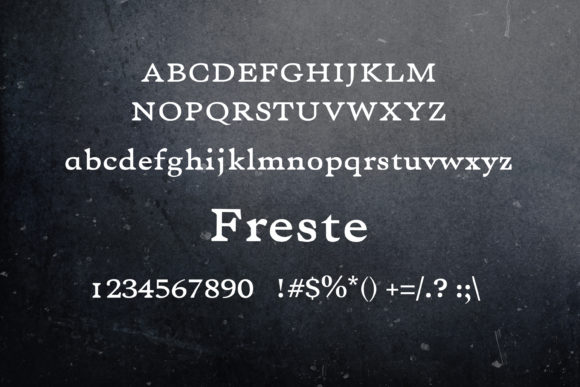
Introducing Freste Font: A Timeless Classic for Your Design Projects
Are you looking for a font that exudes elegance and sophistication? Look no further than Freste Font, a simple serif font with a unique look and feel that’s perfect for any design project that requires a classic appearance. In this article, we’ll dive into the world of Freste Font, exploring its features, benefits, and uses, as well as provide tips and inspiration for designers and crafters.
A Brief Overview of Freste Font
Freste Font is a serif font that’s characterized by its clean lines, simple shapes, and classic feel. It’s a versatile font that can be used for a wide range of design projects, from logos and branding to headings and body text. Whether you’re working on a website, brochure, or business card, Freste Font is a great choice for adding a touch of sophistication and elegance to your design.
Key Features of Freste Font
- Simple and Elegant Design: Freste Font features a simple and elegant design that’s perfect for creating a classic look.
- Serif Details: The font includes serif details that add a touch of sophistication and refinement to your design.
- Unique Look and Feel: Freste Font has a unique look and feel that’s sure to set your design apart from the rest.
- Highly Versatile: The font is highly versatile and can be used for a wide range of design projects.
Benefits of Using Freste Font
So why choose Freste Font for your design projects? Here are just a few benefits of using this amazing font:
- Instant Credibility: Freste Font gives your design an instant credibility and professionalism that’s hard to achieve with other fonts.
- Timeless Appeal: The font has a timeless appeal that ensures your design will look great for years to come.
- Easy to Read: Freste Font is easy to read, even at small sizes, making it perfect for body text and other applications where readability is key.
- Customizable: The font is highly customizable, allowing you to adjust the size, color, and style to suit your design needs.
Uses of Freste Font
Freste Font is a versatile font that can be used for a wide range of design projects, including:
- Logos and Branding: Use Freste Font to create a professional and elegant logo that reflects your brand’s values and personality.
- Websites and Blogs: The font is perfect for use on websites and blogs, adding a touch of sophistication and elegance to your online presence.
- Print Materials: Freste Font is great for use on print materials, such as brochures, business cards, and letterheads.
- Signage and Displays: The font is also suitable for use on signage and displays, where its classic appearance can help to grab attention and communicate your message.
Tips for Using Freste Font
Here are a few tips for using Freste Font in your design projects:
- Pair with Other Fonts: Freste Font pairs well with other fonts, so don’t be afraid to experiment with different combinations to create a unique look.
- Adjust the Size and Color: Adjust the size and color of Freste Font to suit your design needs and create visual interest.
- Use it for Headings and Titles: Freste Font is perfect for use on headings and titles, where its classic appearance can help to grab attention and communicate your message.
Inspiration and Examples
Need some inspiration for using Freste Font in your design projects? Here are a few examples of how the font can be used:
- Business and Finance: Use Freste Font to create a professional and elegant logo or branding materials for a business or finance company.
- Luxury and Fashion: The font is perfect for use in luxury and fashion branding, where its classic appearance can help to communicate high-end quality and sophistication.
- Events and Weddings: Freste Font is great for use on event and wedding materials, such as invitations and programs, where its elegant appearance can help to create a sense of occasion.
In conclusion, Freste Font is a simple serif font with a unique look and feel that’s perfect for any design project that requires a classic appearance. With its clean lines, simple shapes, and elegant design, Freste Font is a versatile font that can be used for a wide range of applications. Whether you’re a designer, crafter, or DIY enthusiast, Freste Font is a great choice for adding a touch of sophistication and elegance to your design projects.